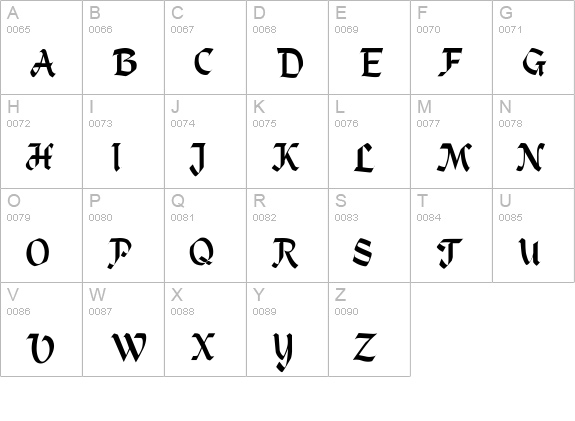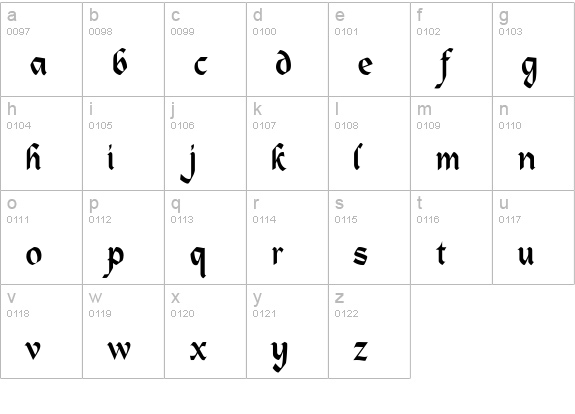
RSHeidleberg Font Details
RSHeidelberg is a modern and stylish font that combines classic elegance with a touch of sophistication. Its clean lines and sleek design make it perfect for a wide range of design projects, from branding to editorial design. Whether you're creating a logo, designing a website, or working on a print project, RSHeidelberg is sure to make a statement. What sets RSHeidelberg apart is not only its visual appeal but also its versatility. This font looks equally stunning in both large headlines and small body text, making it a great choice for projects of any size. Its timeless design ensures that it will remain relevant for years to come. The best part? RSHeidelberg is available for free download at FontsMarket.com. So you can add this beautiful font to your collection without breaking the bank. Don't miss out on the opportunity to elevate your designs with RSHeidelberg's unique style and flair. Download it today and let your creativity shine!